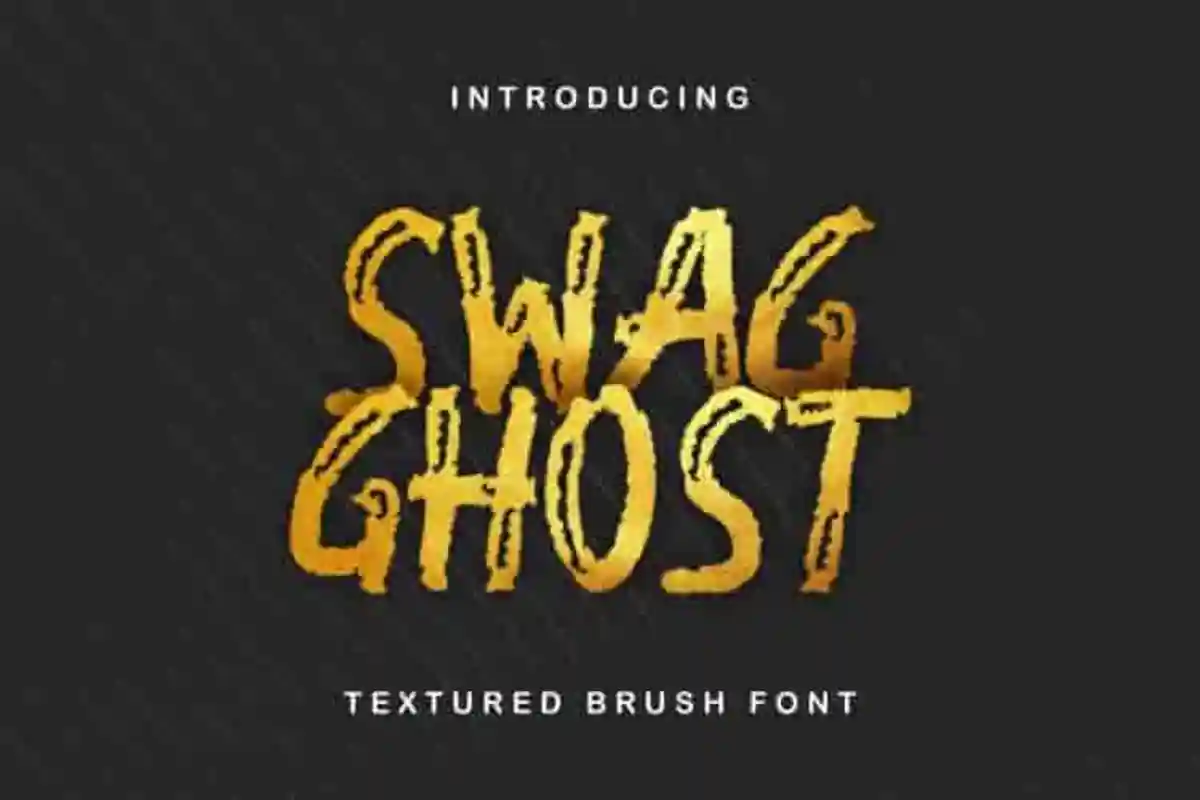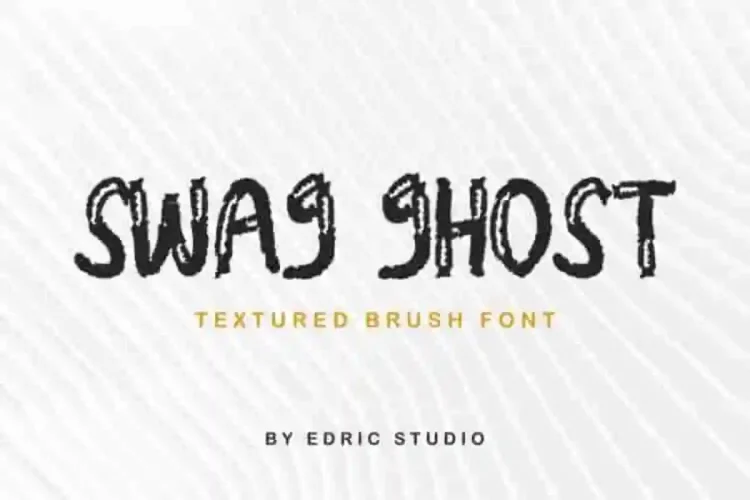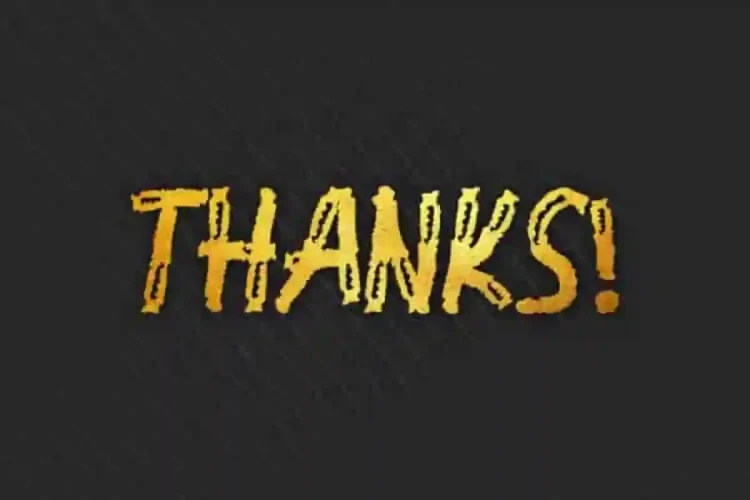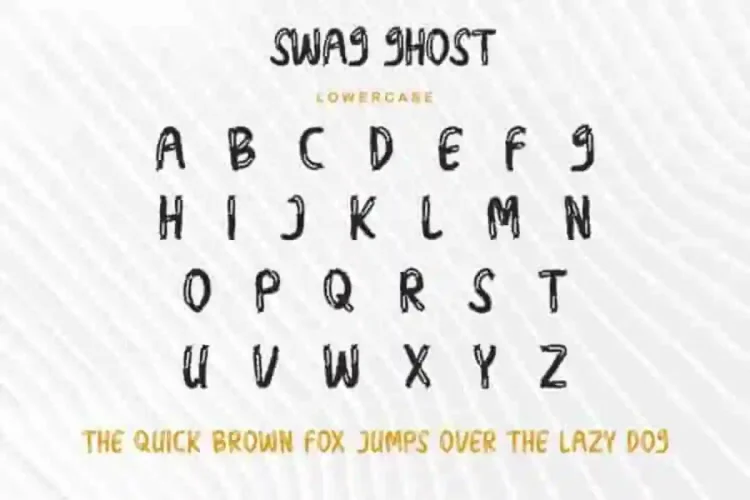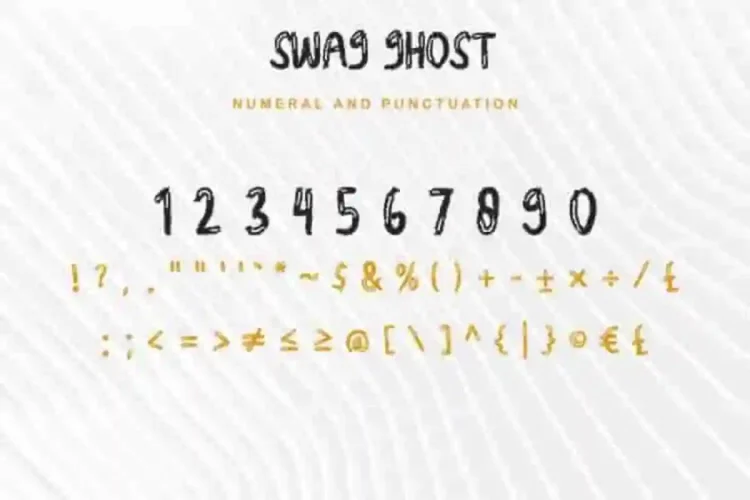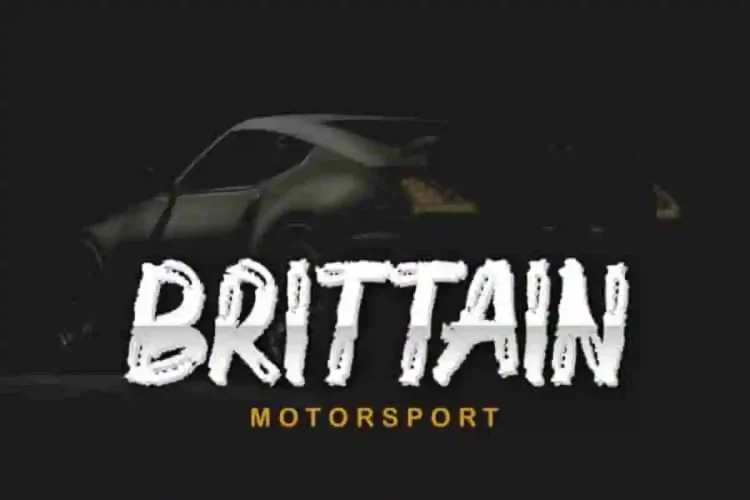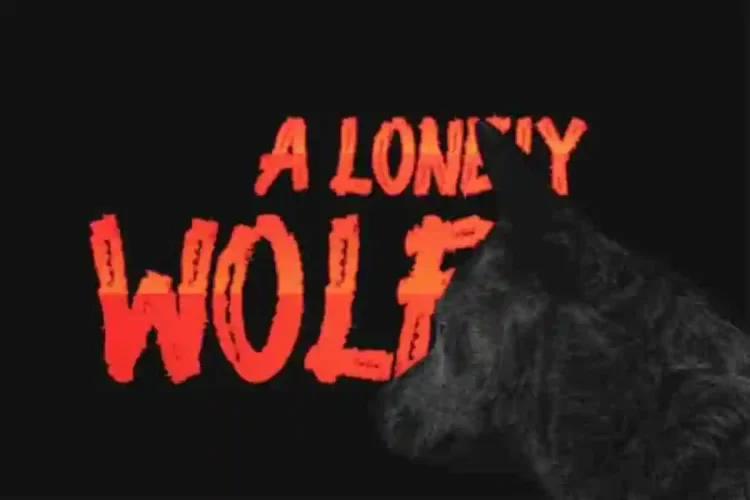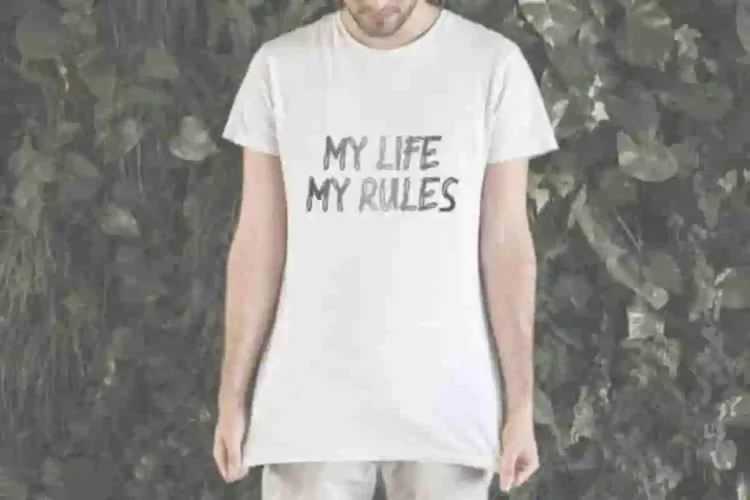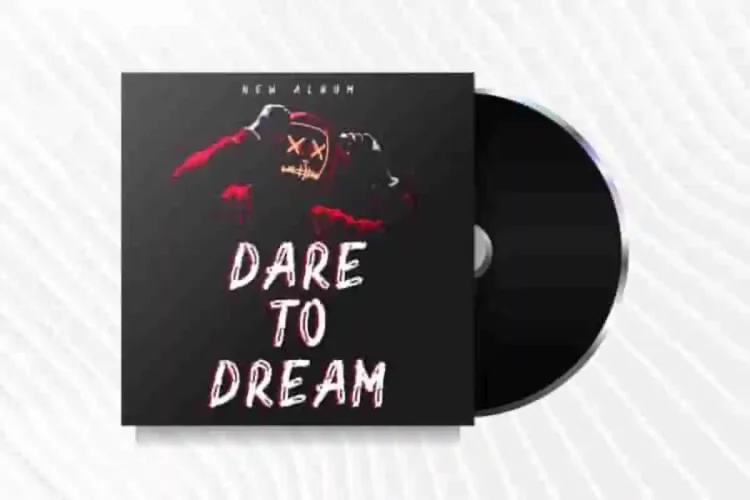
Swag Ghost Grunge Brush Font
Introducing our latest font : Swag Ghost Font
Created by our talented typeface artists Ali and Sarah in Bandung and Garut, Indonesia, The typeface artists/designers of this beautiful font is Ali and Sarah.
Swag Ghost Grunge Brush Font is an unique textured brush decorative typeface with brush style. This font has an exclusive characters set, perfectly managed with well spaced and kerning. The theme style of this font will vintage, clumsy, street paint and classic brush rough style. This font is like no other.
The style blends vintage grit, street paint aesthetics, and classic brush calligraphy, making it an ideal choice for urban, biker, cafe, and event themes.